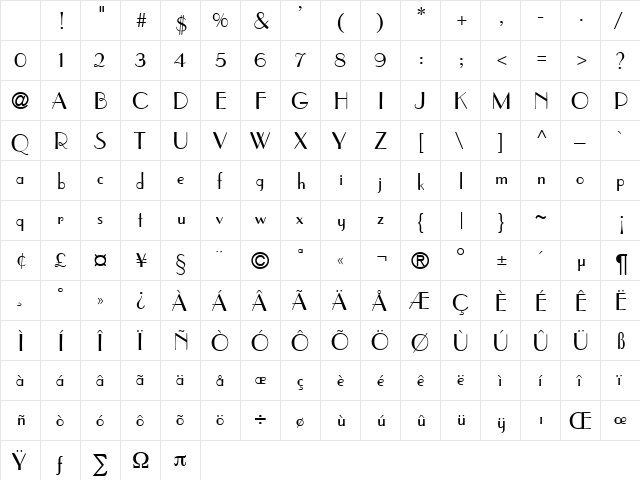
Complete Parcival Dekor DB Regular glyph index. Displaying only characters natively supported by Parcival Dekor DB Regular font.
Parcival Dekor DB is a composed and adaptable typeface that performs quietly and consistently across a wide range of design contexts.